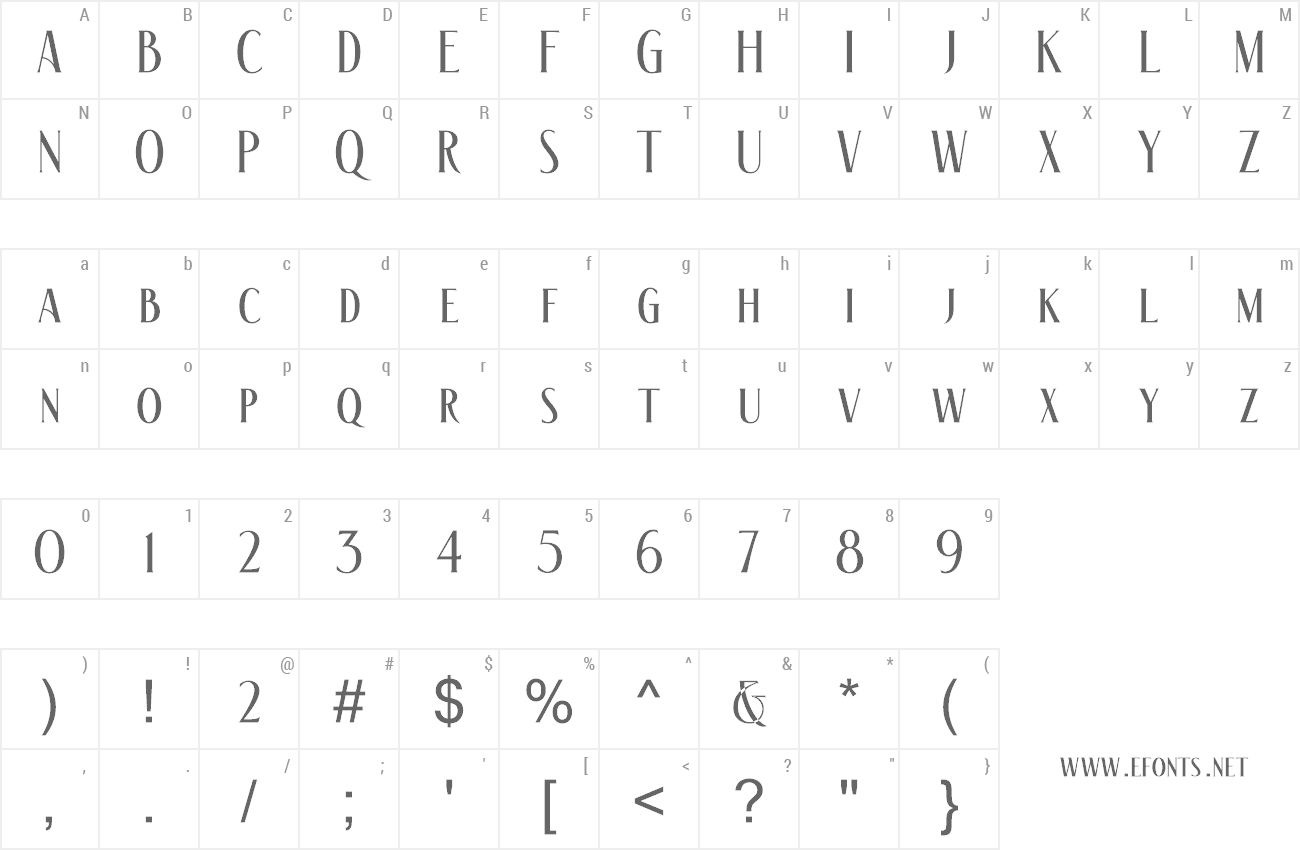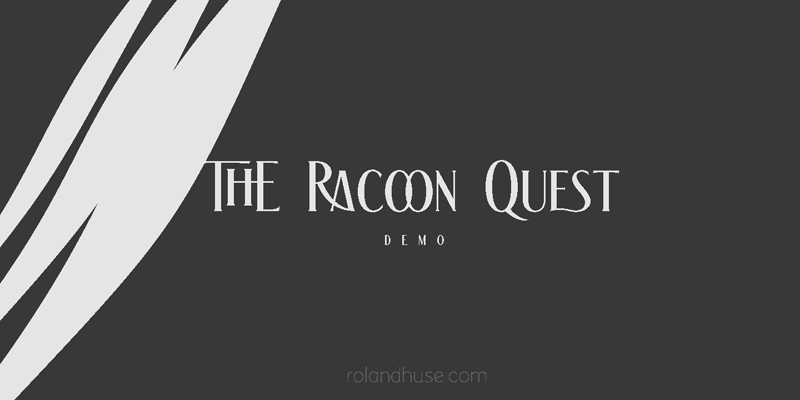
Preview and download The Racoon Quest Font. Created by Roland Huse Design in Basic Serif styles with Demo license.
THE RACOON QUEST is an all Caps serif typeface, lowercase letters are small caps. It has many unusual ligatures and alternates, such as in the example in this demo (RA ligature, OO ligature and ES ligature.) It can be used for various creative theme projects from book covers to games or movie titles. In the full version there are a lot more Ligatures and Stylistic Alternates. If any question, or request, please don�t hesitate to contact me. Font is available at store.rolandhuse.com Roland |